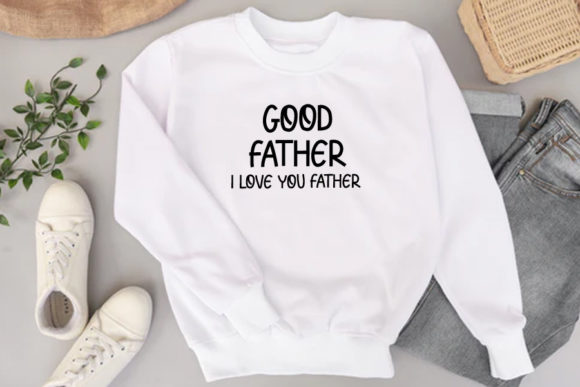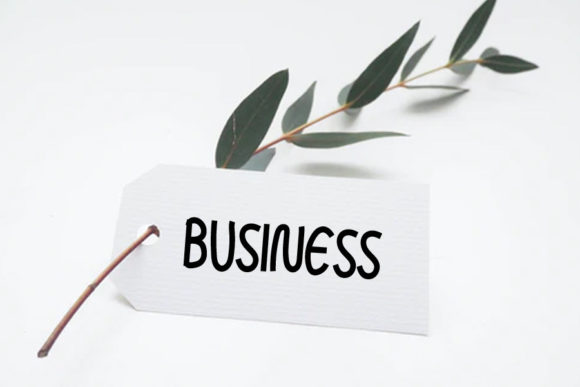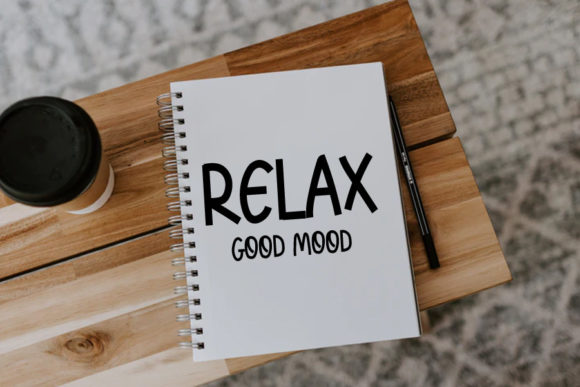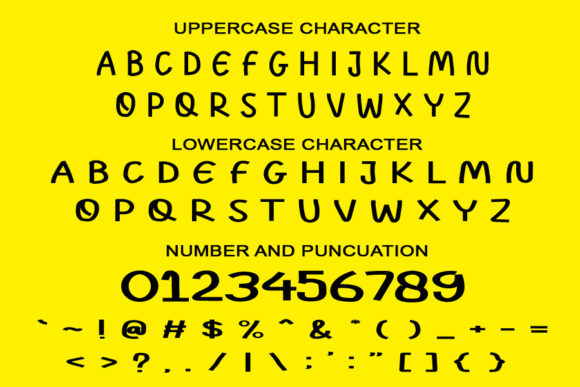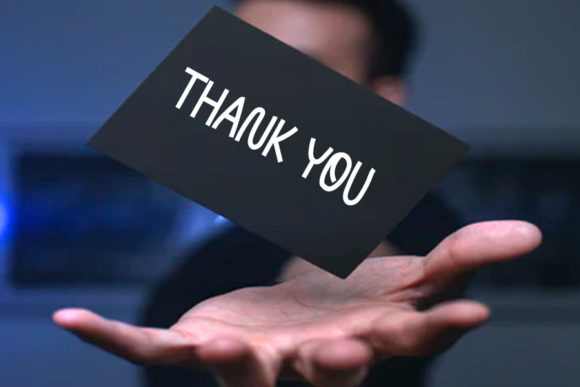
Hello Father Font: Elevate Your Crafting Ideas with a Simple yet Adaptable Display Font
Are you a designer, crafter, or DIY enthusiast looking for a font that can elevate your creative projects? Look no further than the Hello Father Font. This simple and adaptable display font is perfect for a wide range of crafting ideas, from cards and invitations to branding, labels, and more. In this article, we’ll explore the features and benefits of the Hello Father Font and how it can take your crafting projects to the next level.
What is Hello Father Font?
Hello Father Font is a display font designed to make a statement. Its simple yet elegant design makes it perfect for a variety of creative projects. The font is highly adaptable, allowing you to use it in different contexts, from formal to informal, and from digital to print. Whether you’re creating a handmade card, a brand logo, or a product label, Hello Father Font is an excellent choice.
Key Features of Hello Father Font
- Simple and Elegant Design: Hello Father Font features a clean and minimalist design that makes it easy to read and versatile to use.
- Adaptable: The font is highly adaptable, making it suitable for a wide range of creative projects, from formal to informal.
- High-Quality: The font is designed with high-quality craftsmanship, ensuring that it looks great in any context.
- Easily Customizable: Hello Father Font is easy to customize, allowing you to adjust the font size, style, and color to suit your project’s needs.
Benefits of Using Hello Father Font
Using Hello Father Font in your crafting projects offers several benefits. Here are a few:
- Enhances Readability: The font’s simple and elegant design makes it easy to read, even at small sizes.
- Adds Professional Touch: Hello Father Font gives your projects a professional and polished look, making them stand out from the crowd.
- Versatile: The font’s adaptability makes it suitable for a wide range of creative projects, from digital to print.
- Saves Time: With Hello Father Font, you can create professional-looking projects quickly and easily, saving you time and effort.
Creative Projects You Can Make with Hello Father Font
Hello Father Font is perfect for a variety of creative projects. Here are a few ideas to get you started:
- Handmade Cards: Use Hello Father Font to create beautiful and personalized handmade cards for special occasions.
- Branding and Logos: The font is perfect for creating professional-looking logos and branding materials for your business or personal projects.
- Product Labels: Use Hello Father Font to create attractive and informative product labels for your handmade products.
- Invitations and Party Decor: The font is great for creating invitations, party decor, and other celebratory materials.
Tips for Using Hello Father Font
Here are a few tips for using Hello Father Font in your creative projects:
- Experiment with Font Sizes: Try different font sizes to see how Hello Father Font looks in different contexts.
- Pair with Other Fonts: Experiment with pairing Hello Father Font with other fonts to create unique and interesting combinations.
- Adjust Font Color: Adjust the font color to suit your project’s color scheme and style.